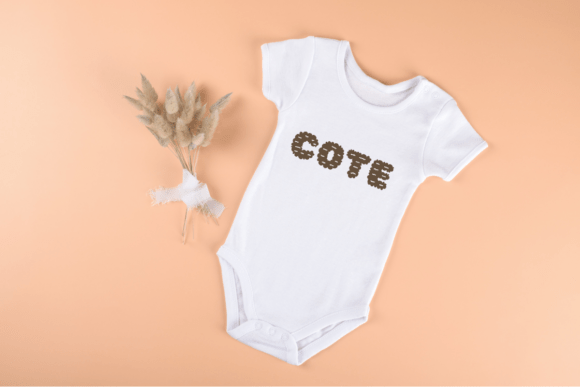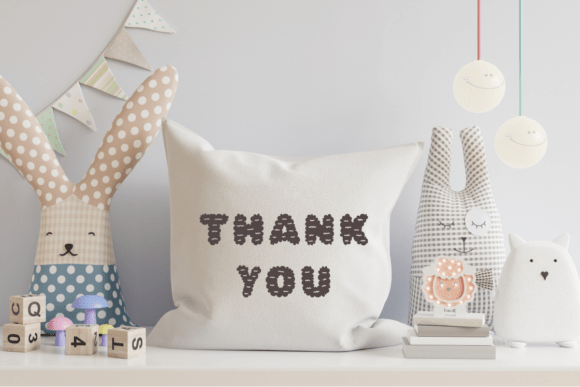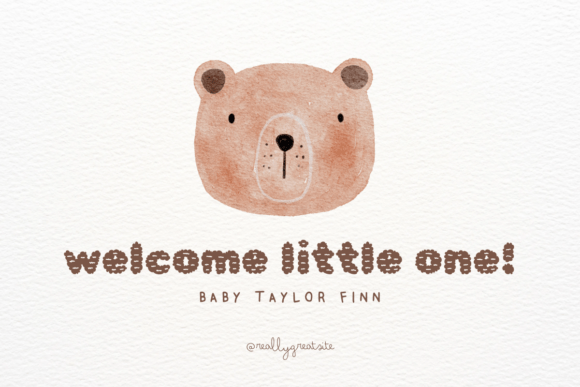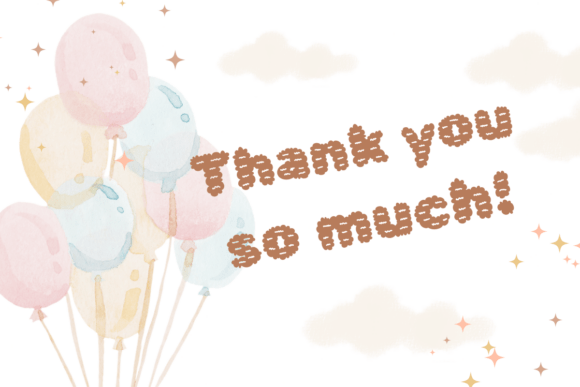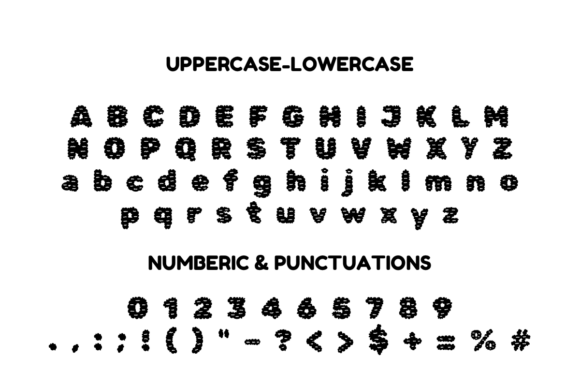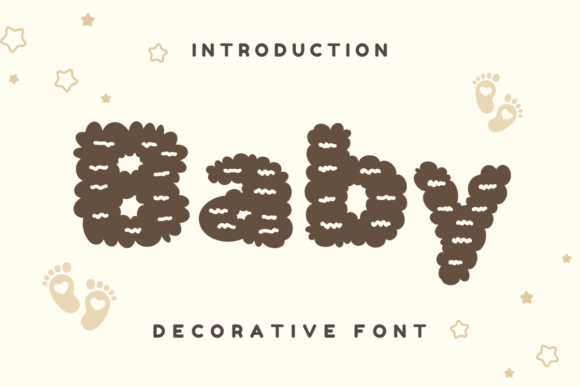
Baby Font: The Ultimate Guide to this Adorable and Playful Typeface
The Baby font is an adorable and playful decorative typeface designed with soft, cloud-like textures. Each character feels like a cozy hug, making it perfect for baby-themed projects, nursery decor, children’s books, and playful branding. Sweet and warm, it brings instant charm to any design.
What is the Baby Font?
The Baby font is a digital typeface that has been carefully crafted to resemble the soft, rounded shapes of a cloud. Its unique texture and design make it stand out from other fonts, giving it a distinctive and charming feel. The font is perfect for designers and crafters who want to add a touch of warmth and personality to their work.
Characteristics of the Baby Font
The Baby font has several characteristics that make it a popular choice for designers and crafters. Some of its key features include:
• Soft and rounded shapes: The Baby font features soft, rounded shapes that give it a gentle and soothing feel.
• Cloud-like texture: The font has a unique texture that resembles a cloud, making it perfect for baby-themed projects.
• Playful and whimsical: The Baby font is playful and whimsical, making it perfect for children’s books, nursery decor, and playful branding.
• Easy to read: Despite its decorative nature, the Baby font is easy to read, making it perfect for use in a variety of design projects.
Uses for the Baby Font
The Baby font is a versatile typeface that can be used in a variety of design projects. Some popular uses for the font include:
• Baby-themed projects: The Baby font is perfect for baby-themed projects, such as baby shower invitations, birth announcements, and nursery decor.
• Children’s books: The font’s playful and whimsical nature makes it perfect for use in children’s books.
• Playful branding: The Baby font can be used to create playful and memorable branding for businesses that cater to children or families.
• Nursery decor: The font can be used to create adorable and personalized nursery decor, such as wall art and signs.
Tips for Using the Baby Font
Here are some tips for using the Baby font in your design projects:
• Use it sparingly: The Baby font is a decorative typeface, so it’s best to use it sparingly to avoid overwhelming the design.
• Pair it with a simple font: Pair the Baby font with a simple font to create contrast and make the design more readable.
• Experiment with colors: The Baby font looks great in a variety of colors, so don’t be afraid to experiment and find the perfect color scheme for your design.
• Use it in combination with graphics: The Baby font looks great in combination with graphics, such as illustrations or photos, to create a playful and eye-catching design.
The Baby font is a charming and playful typeface that is perfect for designers and crafters who want to add a touch of warmth and personality to their work. Its soft, cloud-like texture and rounded shapes make it perfect for baby-themed projects, nursery decor, children’s books, and playful branding. With its ease of use and versatility, the Baby font is a great addition to any designer’s or crafter’s toolkit.